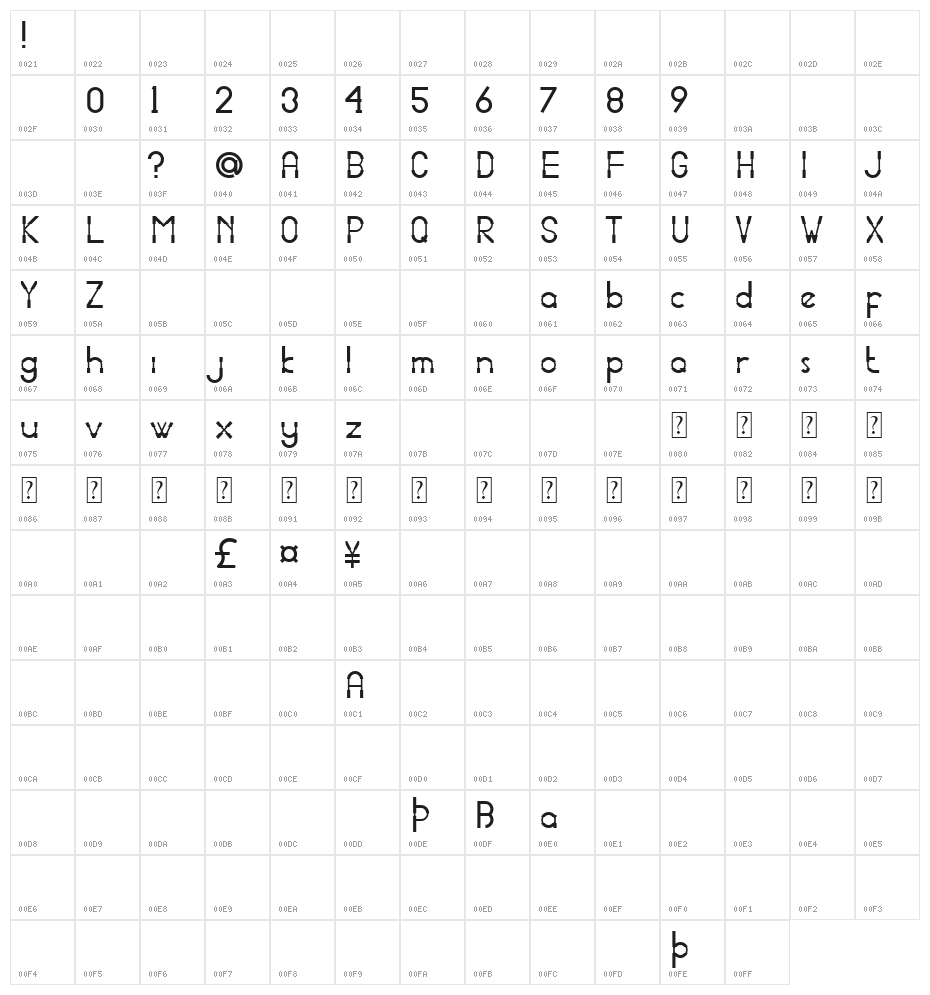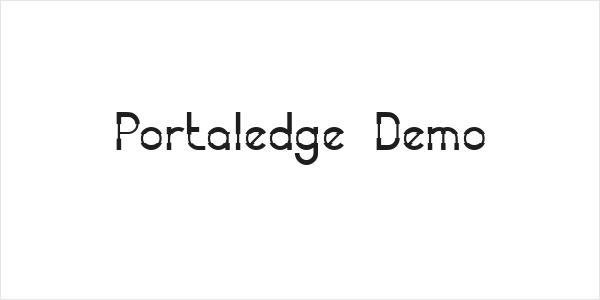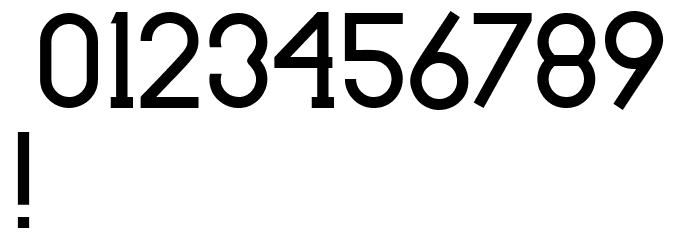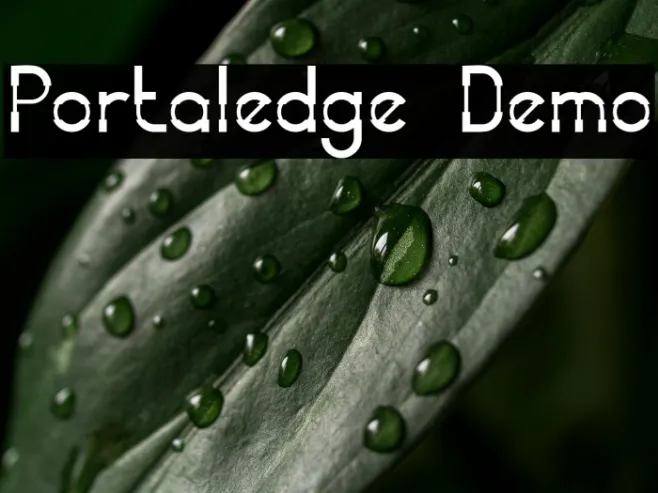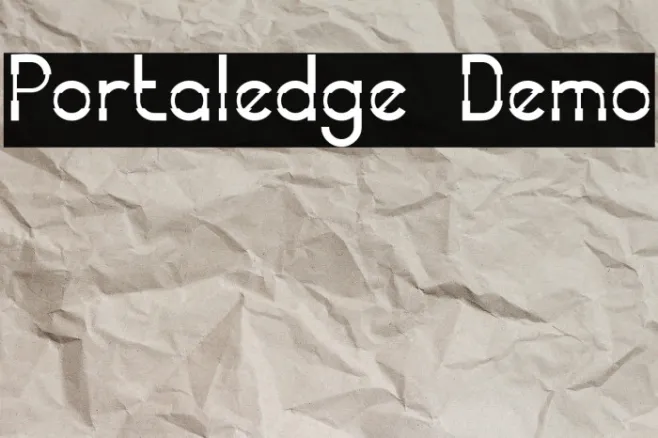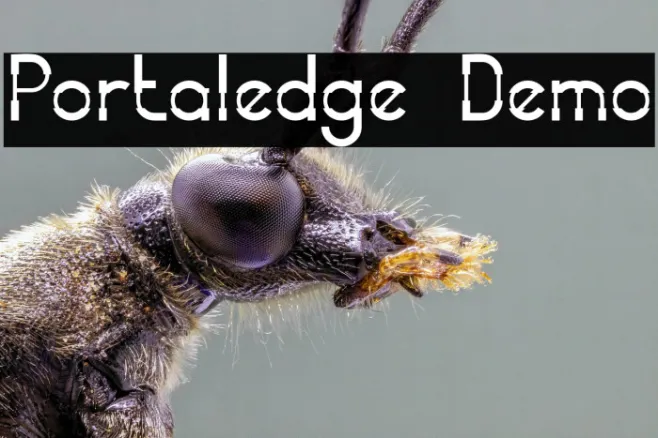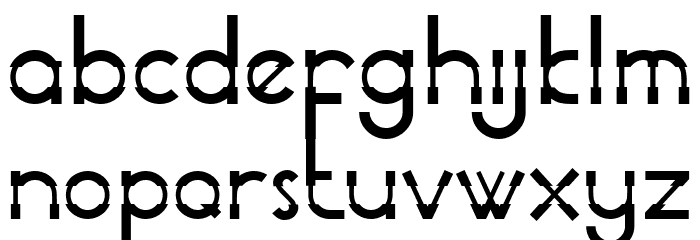
Portaledge Demo Font
Portaledge Demo Description
This font features a unique and modern design with geometric elements and a slightly industrial feel. The uppercase letters are bold and structured, with consistent line thickness and angular edges. The lowercase letters maintain the geometric style but with a softer touch, offering a nice balance between rigidity and fluidity. The numbers are clear and easy to read, following the same design principles as the letters. Special characters are included, maintaining the overall aesthetic. The font's distinct style makes it suitable for creative and contemporary projects, where a bold statement is desired.
| Proposed Projects | Ideal for branding, posters, and modern web design projects where a strong visual impact is needed. |